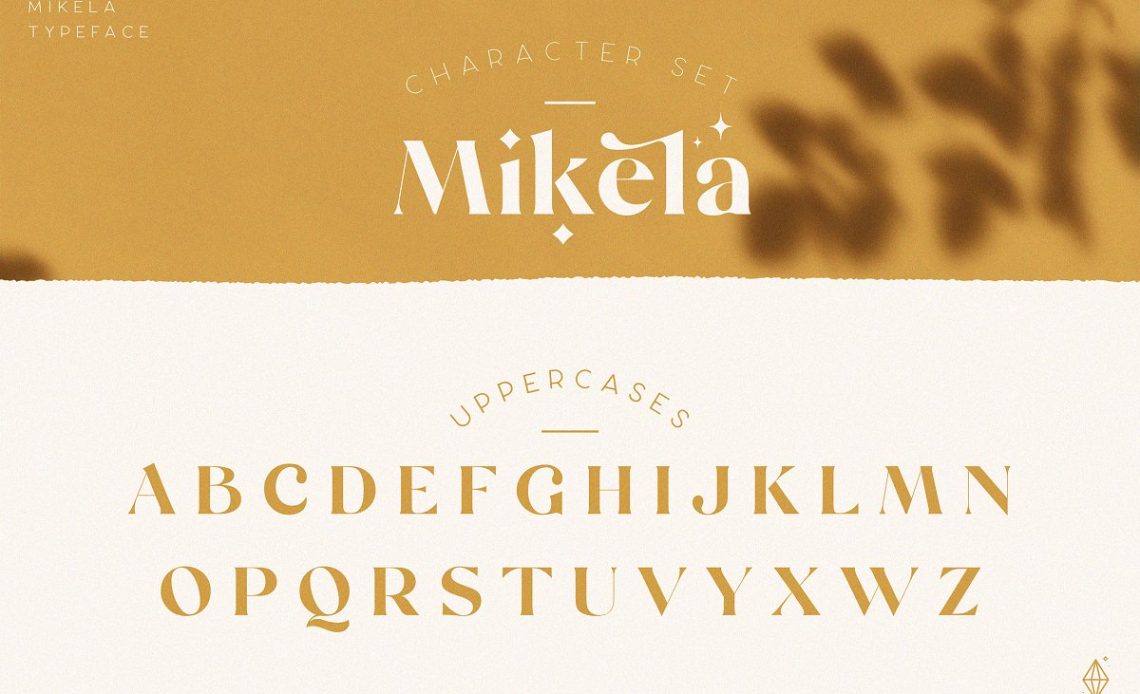
Introducing Mikela, the Gorgeous Typefaces Font Family that will elevate your designs to new heights! Created by NEWFLIX Bro, this font family is perfect for anyone looking to add a touch of elegance, modernity, and vintage charm to their designs.
Mikela is a Bold Minimalist Elegant Modern vintage font that comes with beautiful ligatures, tons of special alternative glyphs, ornament, and multilingual support. It's a very versatile font that works great in large and small sizes, making it perfect for a wide range of projects.
Whether you're working on branding projects, Logo design, Clothing Branding, product packaging, magazine headers, or simply as a stylish text overlay to any background image, Mikela is the font for you!
This font family features 3 Weights fonts, including Lowercase and Uppercase, Stylistic Alternates & Ligatures, Numerals & Punctuation, and Accented characters, making it easy to use in a variety of languages and contexts.
With its gorgeous ligatures and stylistic alternates, Mikela adds a touch of elegance and sophistication to any design project. And, with its beautiful ornamentation and multilingual support, this font family is perfect for anyone looking to create a truly unique and eye-catching design.